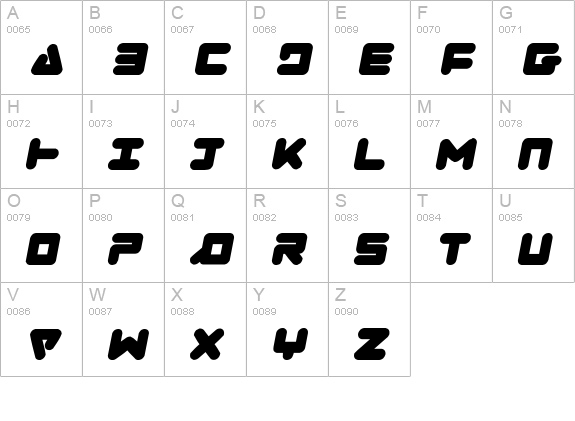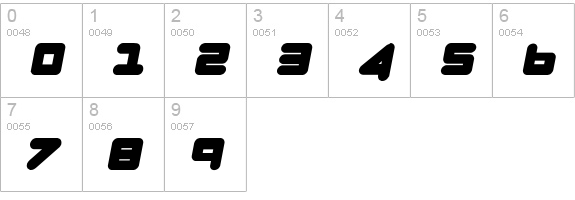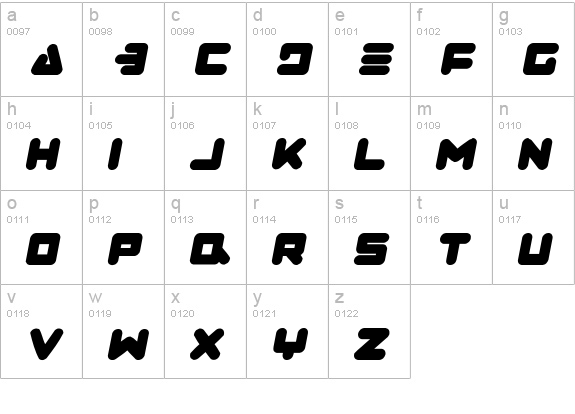
Zealot Italic is a distinctive, italic variant in the Zealot typeface family \xE2\x80\x94 well suited to design and typography projects.
Zealot Italic is a beautifully crafted font that exudes elegance and sophistication. Its slanted design adds a touch of dynamism and flair to any project, making it perfect for adding a modern twist to your designs. The sleek and stylish curves of Zealot Italic make it a versatile choice for a wide range of applications, from branding to editorial design. What sets Zealot Italic apart is not just its stunning appearance, but also the fact that it is available for free. Yes, you read that right - this amazing font can be downloaded for free at FontsMarket.com. Now you can elevate your projects with a high-quality font without breaking the bank. Whether you're working on a logo, website, or print materials, Zealot Italic is sure to make a lasting impression. Download it today and unleash your creativity with this exceptional typeface.